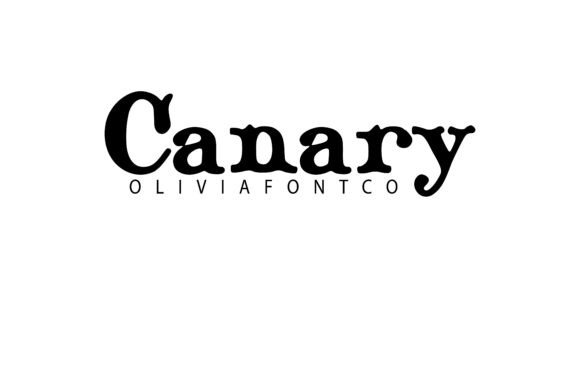
The Canary Font: A Romantic Serif Favorite for Creative Projects
I’ll never forget the moment I stumbled upon the Canary font while working on a wedding invitation design project. My client had a clear vision of a classic, romantic look, but I was struggling to find the perfect font to bring it to life. That was until I discovered Canary – an authentic serif font with a subtle charm that instantly won me over. In this article, I’ll share my experience with Canary, its features, and how to make the most of it in your creative projects.
An Honest Review of Canary Font
What I Love About Canary ✨
• ✅ Legibility: Canary is incredibly easy to read, making it perfect for both title and body text.
• ✅ Romantic Touch: The font’s subtle serifs and elegant lines add a touch of romance to any design.
• ✅ Versatility: Canary can be used for a wide range of projects, from magazine headlines to social media graphics, branding, and wedding invitations.
• ✅ Authentic Look: The font’s classic design makes it suitable for projects that require a traditional or vintage feel.
• ⚠️ Limited Extras: While Canary is a beautifully designed font, it may not come with an extensive range of extra glyphs or OpenType features.
• ⚠️ Not Ideal for Body Text in Small Sizes: While Canary is generally legible, it may not be the best choice for body text in very small sizes (e.g., below 10pt).
The Story Behind Canary Font
Canary was designed by a team of typographers who aimed to create a font that would evoke a sense of romance and elegance. Inspired by classic serif fonts, they crafted Canary to be both timeless and versatile. Whether you’re designing a wedding invitation or a magazine headline, Canary is sure to bring a touch of sophistication to your project.
What is Canary font best suited for? Canary is perfect for projects that require a romantic, elegant look, such as wedding invitations, magazine headlines, social media graphics, and branding.
Is Canary a legible font? Yes, Canary is designed to be highly legible, making it suitable for both title and body text.
Does Canary come with OpenType features? Canary may not have an extensive range of OpenType features, but it does offer some stylistic alternates and glyphs to enhance your design.